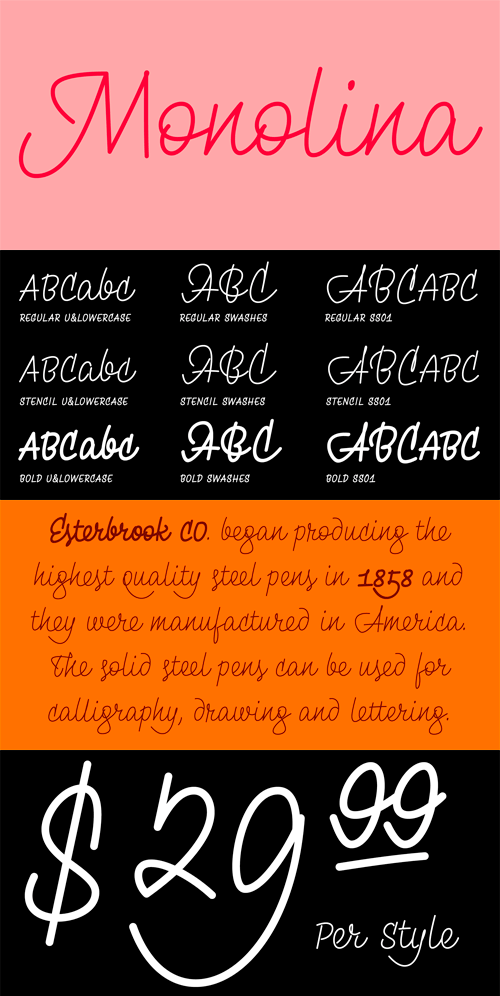
Monolina is a contemporary monolinear script that is based on the contrast between classical (beautiful) calligraphy and quickly jotted manuscript (sketches). As all styles are based on the single stroke of a round nib pen, the letter is rounded. The typeface features two sets of capital and curly uppercase letters, swash characters and alternative lowercase letters, which combine well in three styles. The font also features swash figures and decimal figures for writing years and summer sales. Accent marks for all languages using Latin letters, currency symbols and punctuation marks are included. The typeface comes across as fresh as is particularly effective at headline point sizes.